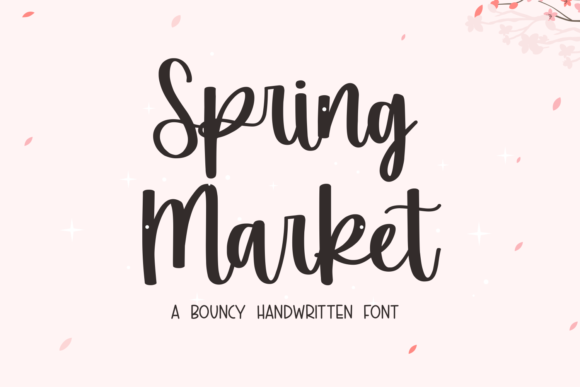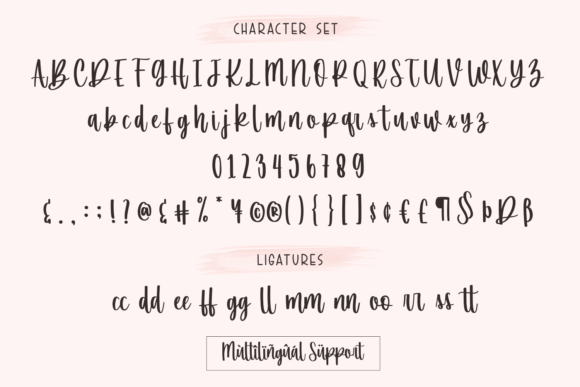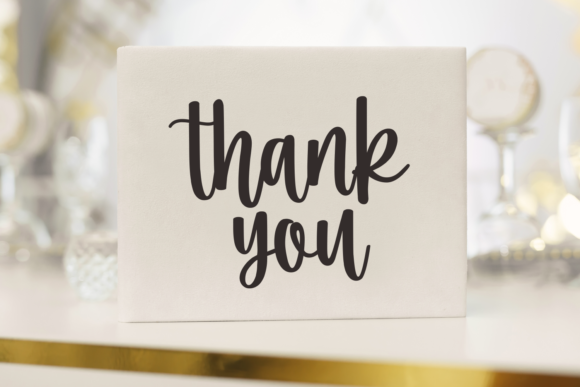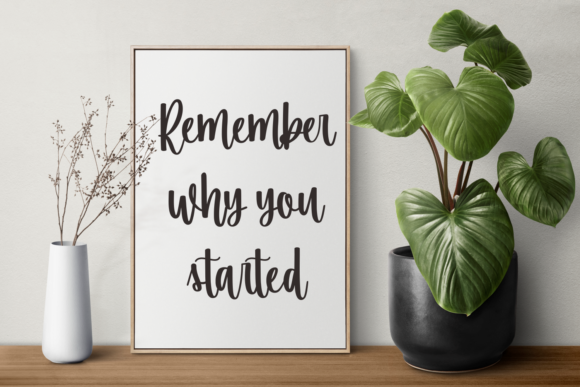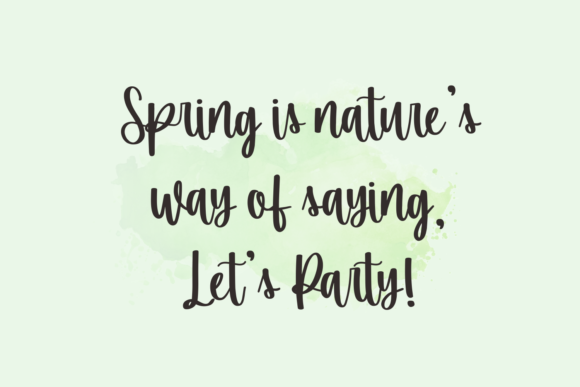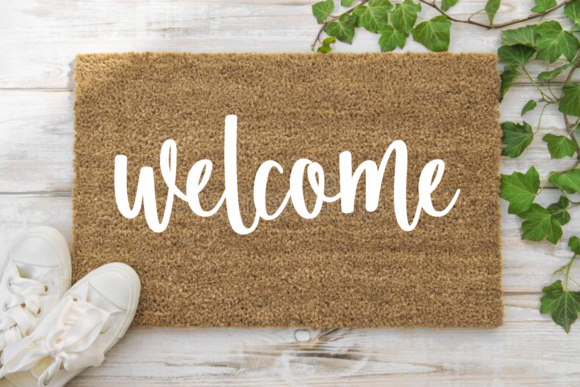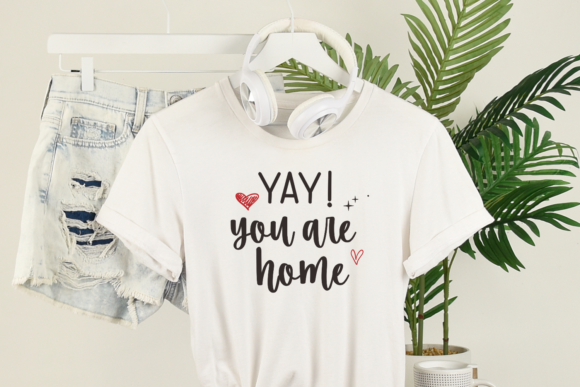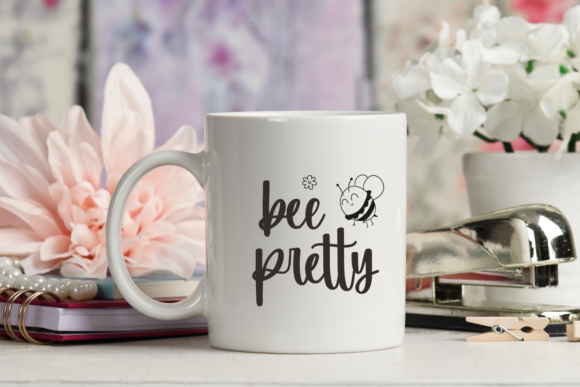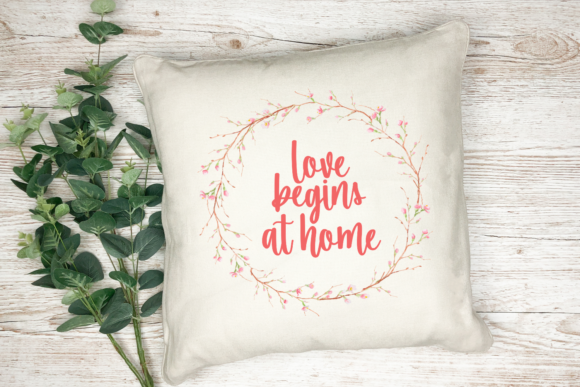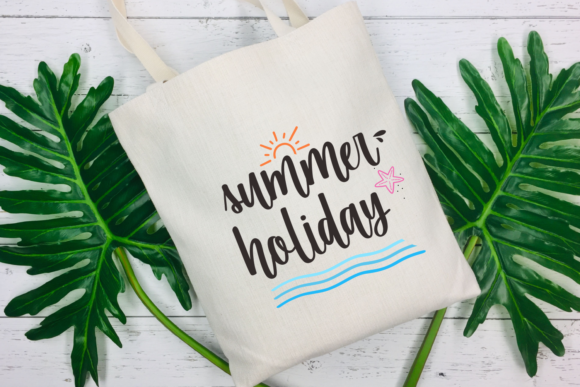
Spring Market Font
About Spring Market Font
“Spring Market” is a lively and bouncy calligraphy script font designed to infuse elegance and class into your design projects. With its dynamic and expressive qualities, this font stands out as a versatile choice that can be employed to write about various products, adapting effortlessly to the specific requirements of each design need.
The bouncy calligraphy style of “Spring Market” brings a playful and energetic vibe to your designs. Its lively strokes and fluid letterforms add a touch of dynamism, making it a captivating choice for projects that seek to convey a sense of movement and creativity.
In terms of elegance and class, “Spring Market” does not compromise its lively nature. The calligraphy script maintains a sense of refinement, creating a harmonious balance between playfulness and sophistication. This makes it suitable for a range of design applications where you want to add a touch of flair without sacrificing elegance.
Whether used for branding, product packaging, invitations, or any creative project, “Spring Market” brings a unique charm to your typography. Its calligraphic script is well-suited for conveying a sense of personalization and warmth, making it an excellent choice for projects that aim to establish a connection with the audience.
The adaptability of “Spring Market” extends to its ability to write about various kinds of products. From artisanal goods to lifestyle products, the font’s calligraphy style allows it to enhance the visual aesthetics of different product categories. Its versatile nature makes it a valuable asset for designers seeking a font that can seamlessly adapt to diverse design needs.
In summary, “Spring Market” is more than just a font; it’s a lively and bouncy calligraphy script designed to add elegance and class to your design projects. With its dynamic qualities and versatility, this font is well-suited for a variety of applications, allowing you to create captivating and refined visual content that leaves a lasting impression.